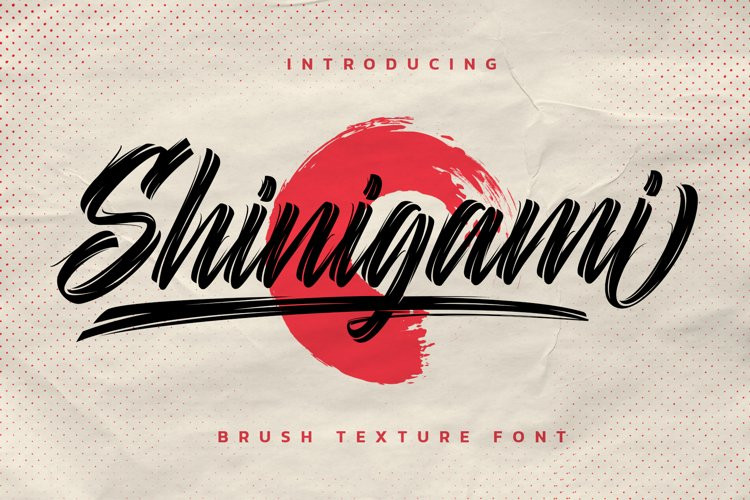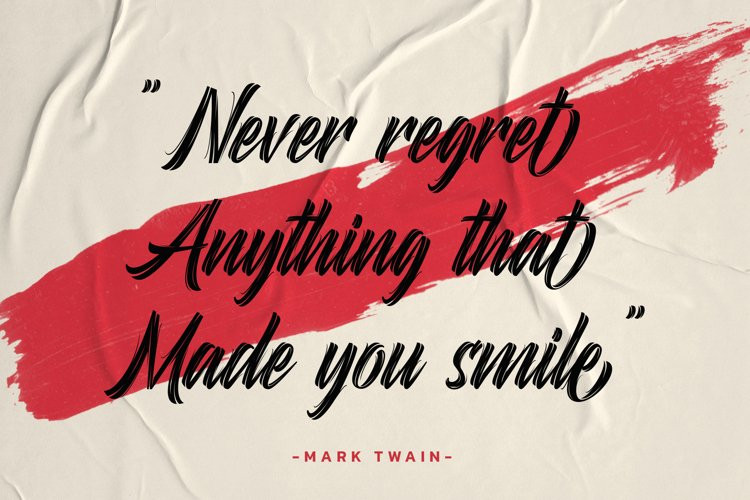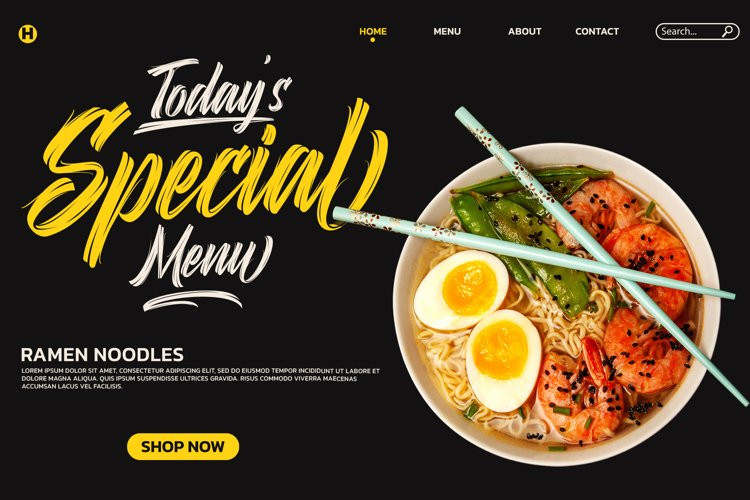
Shinigami Font
Shinigami is modern brush script font. It has a classy, elegant and modern look that can be used for logos, branding, invitations, stationery, wedding designs, social media posts, and much more!